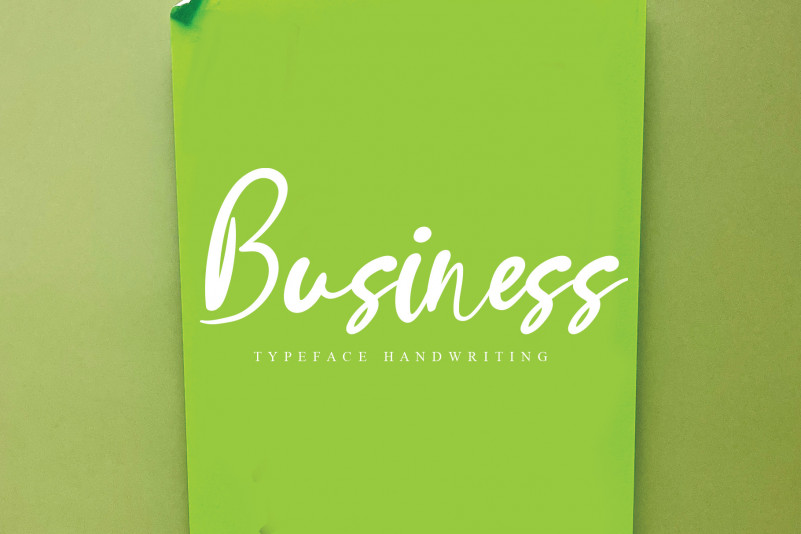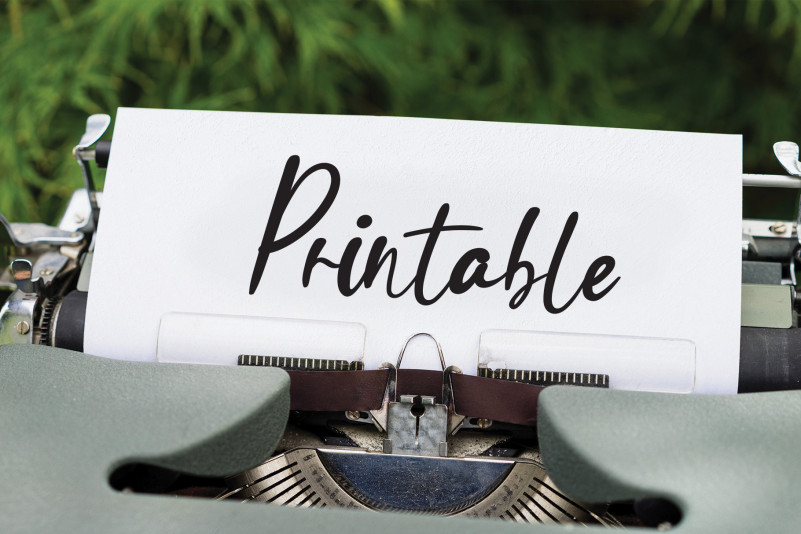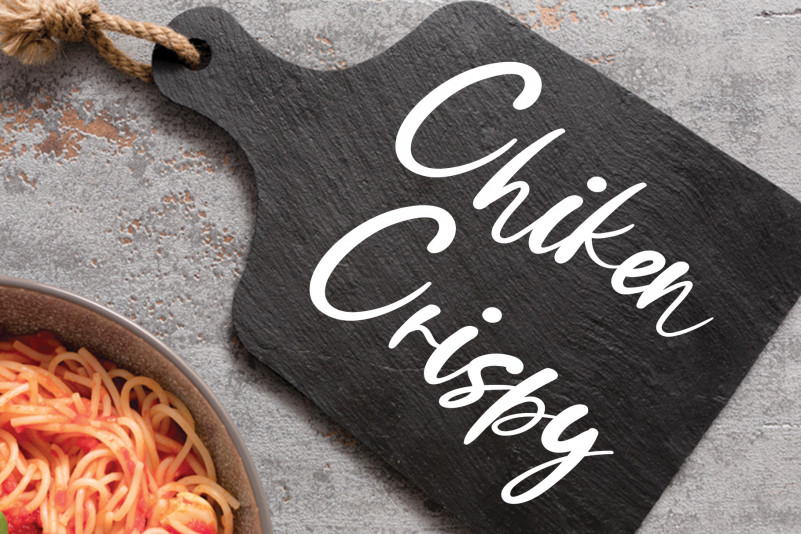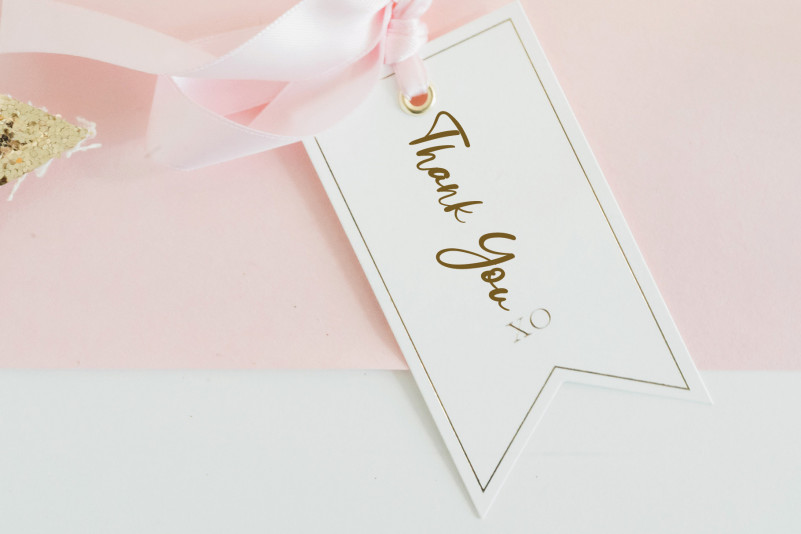
Rosellina Script Font
Rosellina Script Font is a flowing handwritten font, described by an elegant touch, perfect for your favorite projects. Fall in love with its incredibly distinct and timeless style and use it to create spectacular designs!